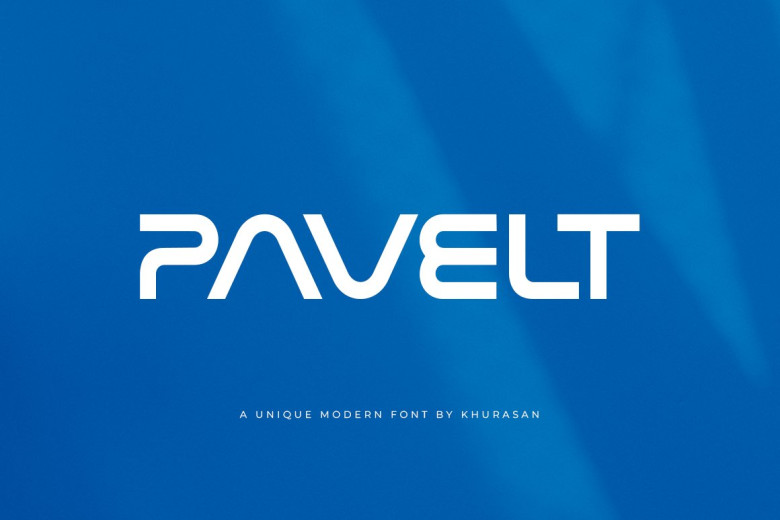
Pavelt Font
Pavelt font is an eye-catching display typeface designed for futuristic typography, sci-fi design and modern designs. Useful in many projects – add it to your ideas and see it come alive!
Pavelt Display Font